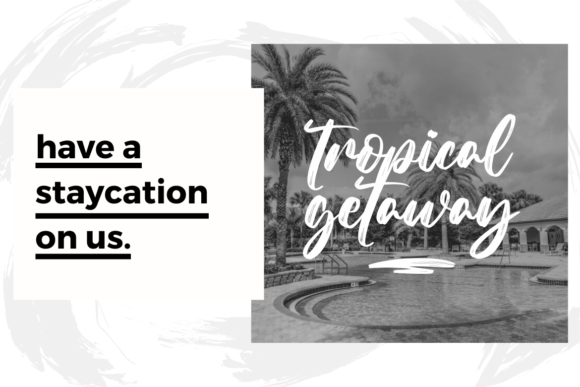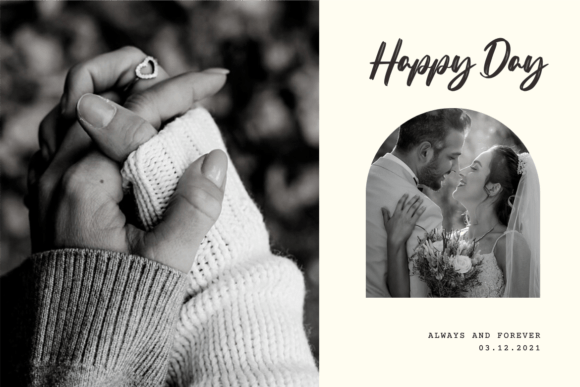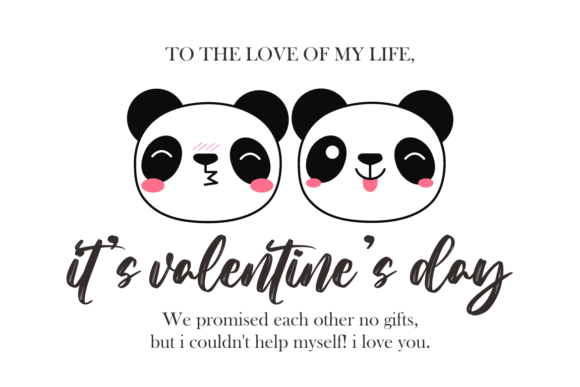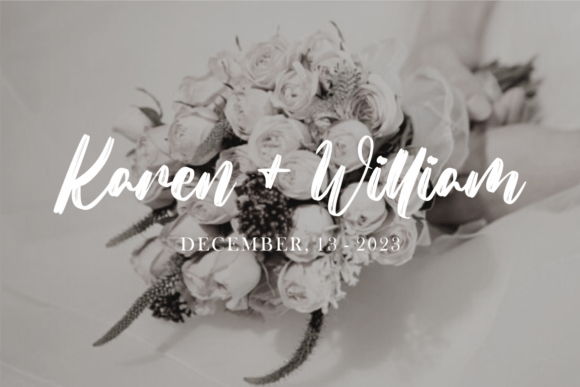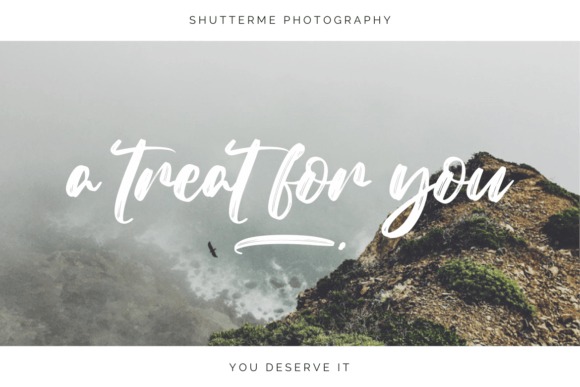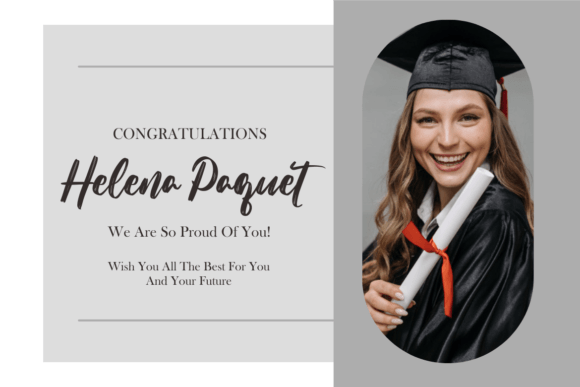
Introduction to Sammitha Font
Have you ever found yourself stuck in front of a blank canvas, staring at a blank sheet of paper, and struggling to bring your creative vision to life? This is a moment we’ve all been in, and it’s exactly why we turn to the perfect design resource to spark our imagination. That’s where the beautiful Sammitha Font comes in – a stylish, modern, and elegant handwritten script font that’s sure to add a touch of romance to your next creative project.
As a designer, you’re always on the lookout for high-quality fonts that can elevate your work and make it stand out. With Sammitha Font, you’ll get just that – a versatile and sophisticated font that’s perfect for everything from greeting cards to headlines. And the best part? You can download it for free, giving you the freedom to experiment and push the boundaries of your creativity.
Whether you’re working on a personal project or a commercial one, Sammitha Font is a valuable addition to any designer’s toolkit. Its transparent background and elegant design make it a perfect fit for a wide range of applications, and its free download means you can try it out without breaking the bank.
Key Features of Sammitha Font
- High-quality design resource ideal for creative projects, including graphics, logos, and typography.
- Unique, hand-crafted font with a transparent background, allowing for easy customization and blending.
- Includes a range of characters, including uppercase and lowercase letters, numbers, and punctuation, to support a variety of creative projects.
- Designed with a high resolution (up to 300 DPI), ensuring crisp and clear text display in various sizes and applications.
- Perfect for designers, artists, and writers seeking a distinctive and elegant font for their next creative project.
- Supports multiple languages, making it a versatile design resource for global projects and audiences.
Honest Review: Sammitha Font
I recently stumbled upon the Sammitha Font and I must say it’s a fantastic addition to any design resource. I’ve been working on a creative project and I needed a high quality font to give it a personal touch. The Sammitha Font definitely delivered.
- ✨ High-quality design: The font is incredibly detailed and visually appealing, making it perfect for any project.
- ✨ Transparent background: The font’s transparent background allows for easy layering and manipulation in graphic design software.
While the Sammitha Font excels in many areas, there are a few limitations to consider:
- ⚠️ Limited font weights: The font only comes in a few weights, which may limit its versatility in certain design scenarios.
- ⚠️ Not suitable for body text: The font’s elaborate design makes it more suitable for headings and titles rather than body text.
Overall, the Sammitha Font is a great addition to any design resource. Its high-quality design and transparent background make it perfect for creative projects. While it may have some limitations, it’s definitely worth considering for your next design project.
How to Use Sammitha Font
The Sammitha Font is a high-quality design resource perfect for creative projects. It’s available for free download and features a transparent background, making it easy to customize.
Tips for Getting the Most Out of Sammitha Font
For optimal results, use Sammitha Font in conjunction with high-quality graphics and a clear design concept. Experiment with different font sizes, colors, and styles to create a visually appealing design.
The Sammitha Font is ideal for a variety of creative projects, including logos, business cards, brochures, and social media graphics. Its transparent background makes it easy to layer with other design elements.